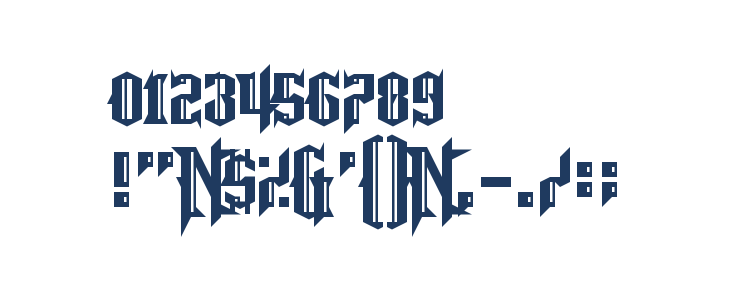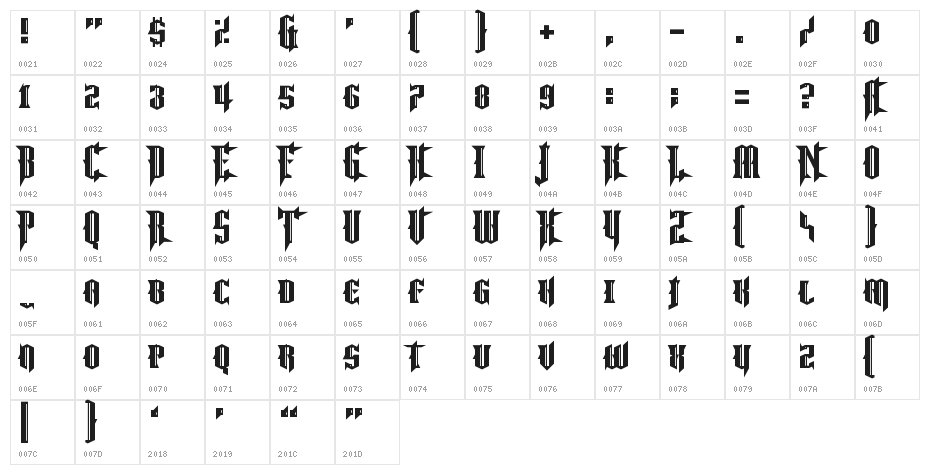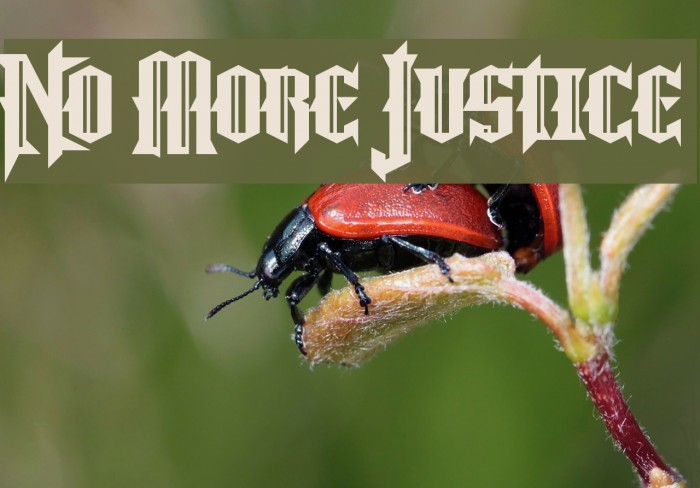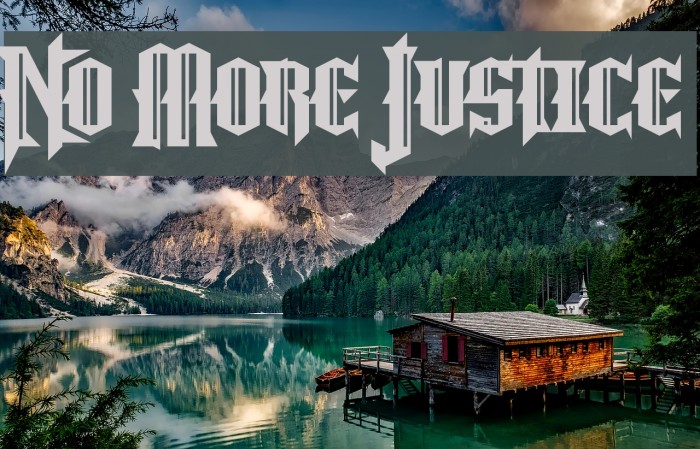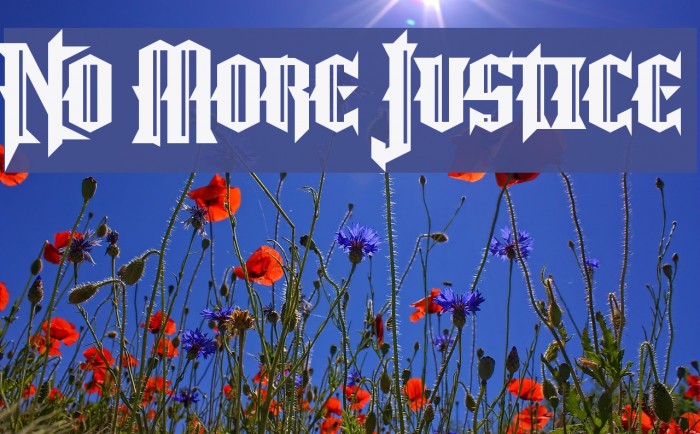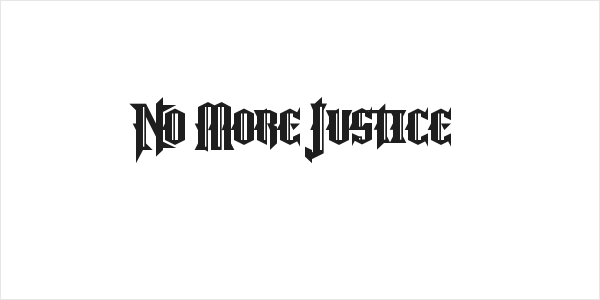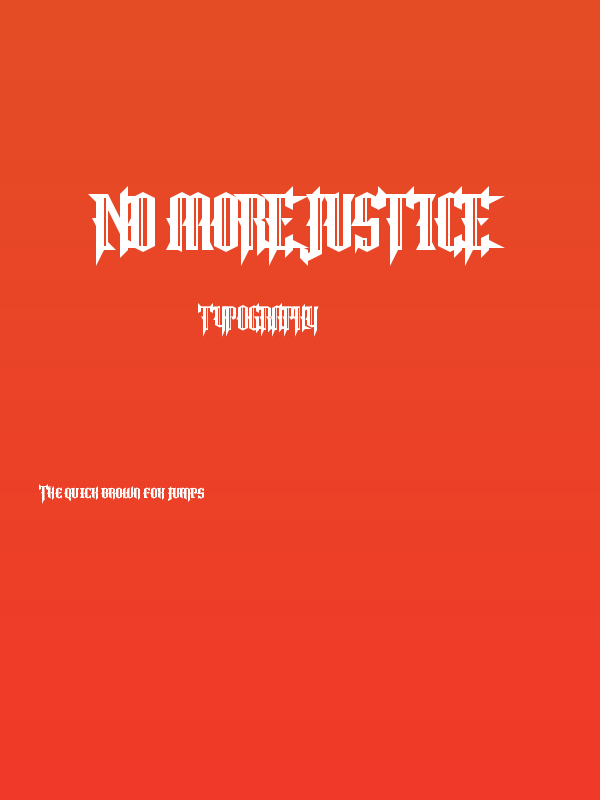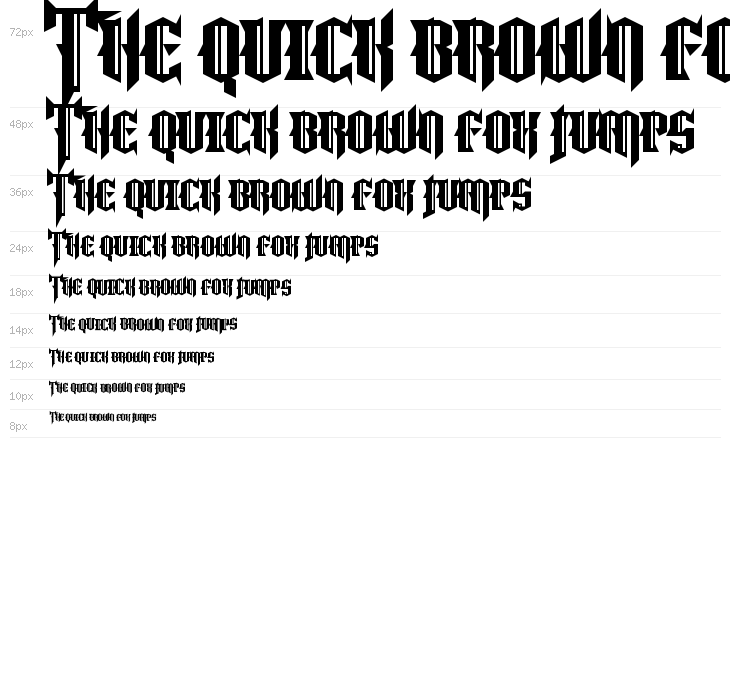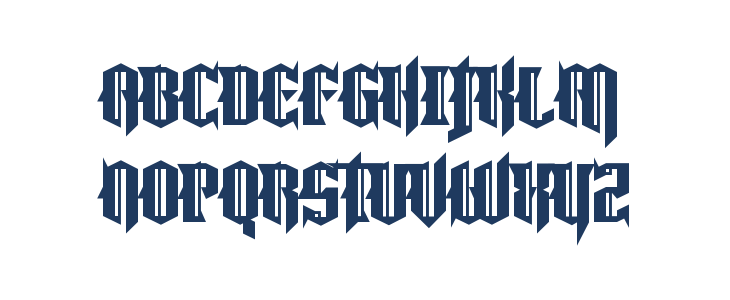
No More Justice Font
No More Justice Description
This font features a bold and striking design with sharp, angular edges and a gothic influence. The characters are highly stylized, with intricate details that give them a unique and edgy appearance. The uppercase and lowercase letters maintain a consistent style, with a strong emphasis on vertical lines and pointed serifs. The numbers and special characters are equally bold, ensuring a cohesive look across all elements. This font's dramatic and intense style makes it ideal for projects that require a strong visual impact.
| Overall Style | Gothic, Decorative |
| Proposed Projects | Ideal for album covers, posters, tattoos, and branding that requires a bold and edgy aesthetic. |